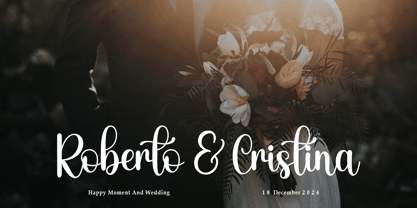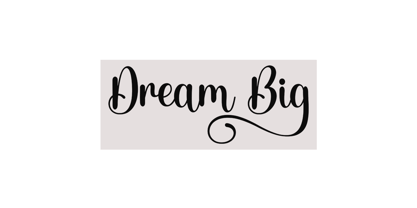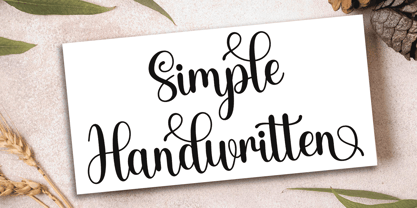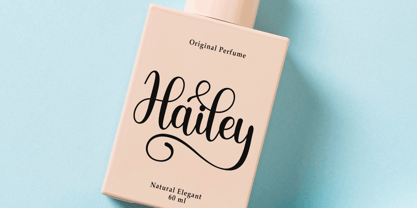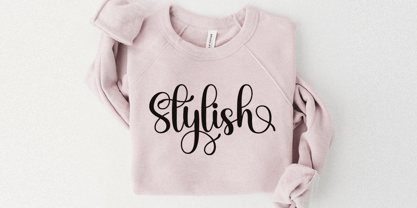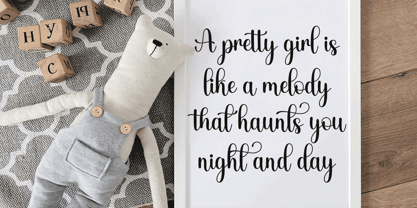
Bitney Script
von Good Design
Die Schriftfamilie Bitney Script wurde von Agus Pujiyono entworfen und von Good Design veröffentlicht. Bitney Script enthält 1 Stile. Mehr über diese Familie
Bitney Script is an exquisite handwritten font, masterfully designed to become a true favorite. It maintains its classy calligraphic influences while feeling contemporary and fresh. Fall in love with it and bring your projects to the highest levels!
Designer: Agus Pujiyono
Foundry: Good Design